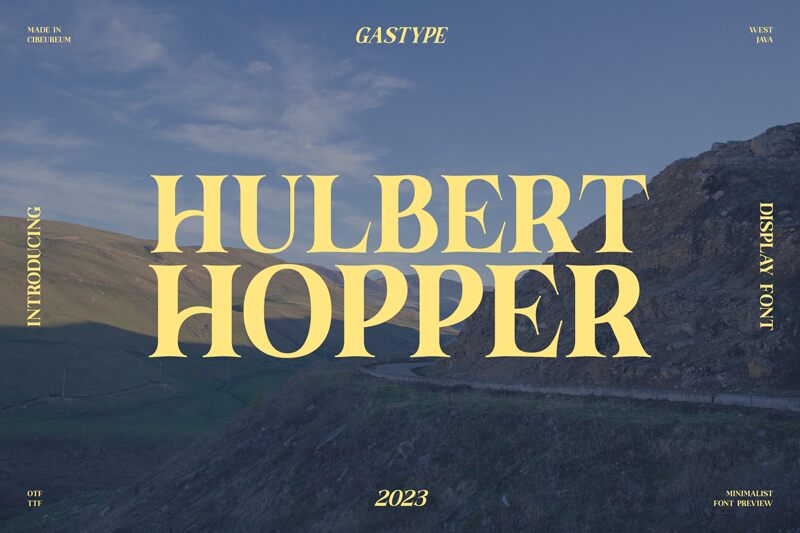
Hulbert Hopper Display is a captivating serif font crafted by Glyphofik Studio. With its bold, confident strokes and fluid, dynamic forms, this font exudes a sense of striking sophistication. The interplay of sharp, angular serifs and the font's robust weight create a striking visual impact, evoking a sense of authority and gravitas. Hulbert Hopper Display's distinctive character shapes and harmonious letter spacing work in tandem to produce a refined, yet impactful typographic presentation.
This versatile font lends itself well to a variety of design applications, from editorial layouts and branding materials to packaging and digital interfaces. Hulbert Hopper Display's bold presence and legibility make it an excellent choice for headlines, titles, and other prominent typographic elements, while its serif construction also allows it to be used effectively in body text. The font's versatility ensures it can elevate the aesthetic appeal of projects across diverse industries and design disciplines.
Hulbert Hopper Display